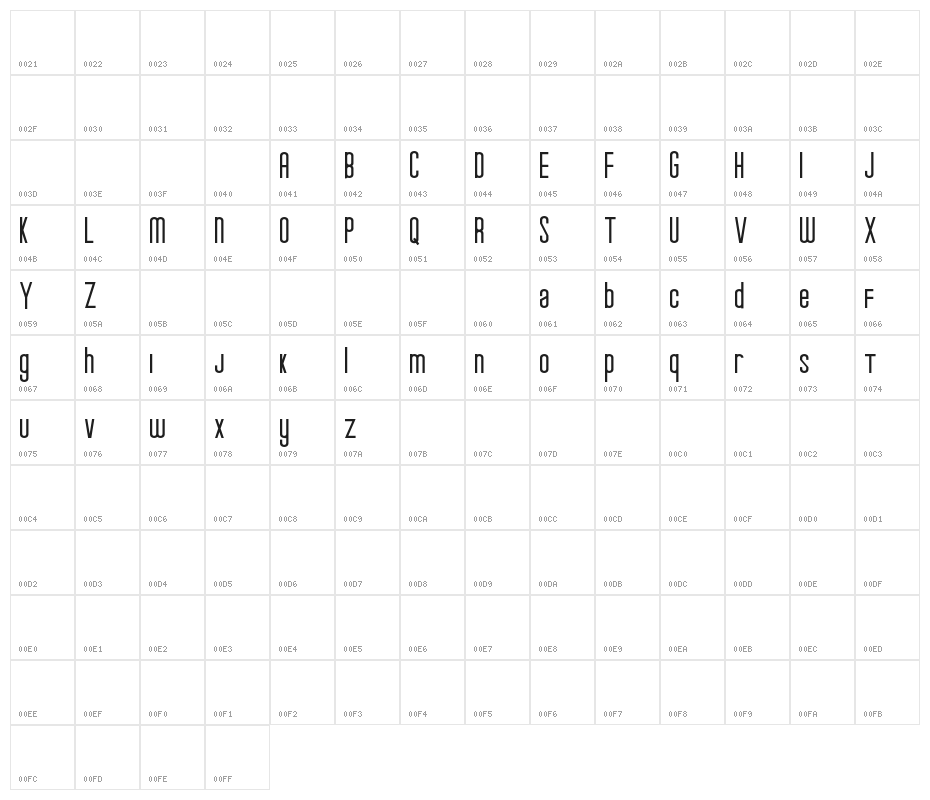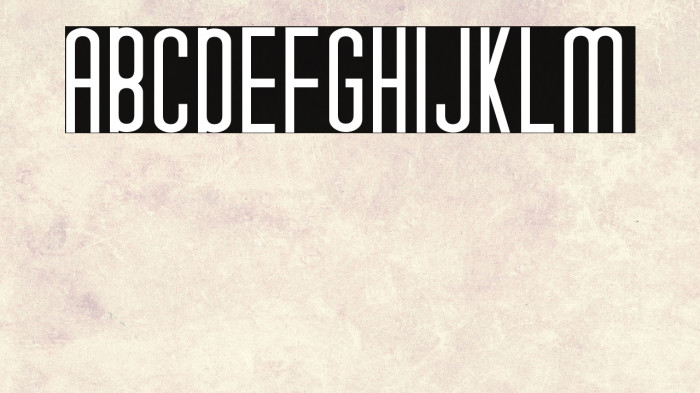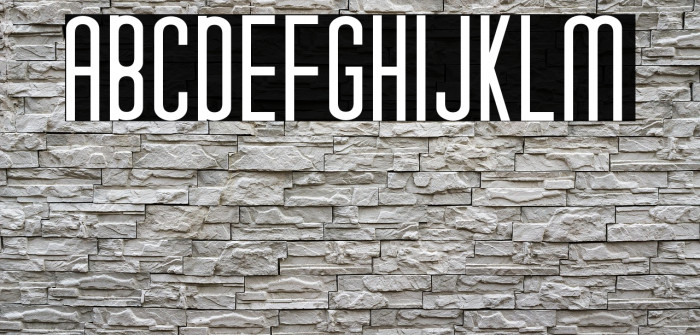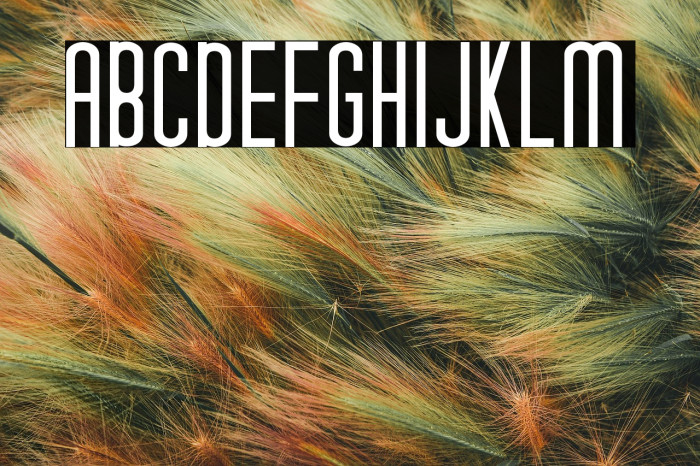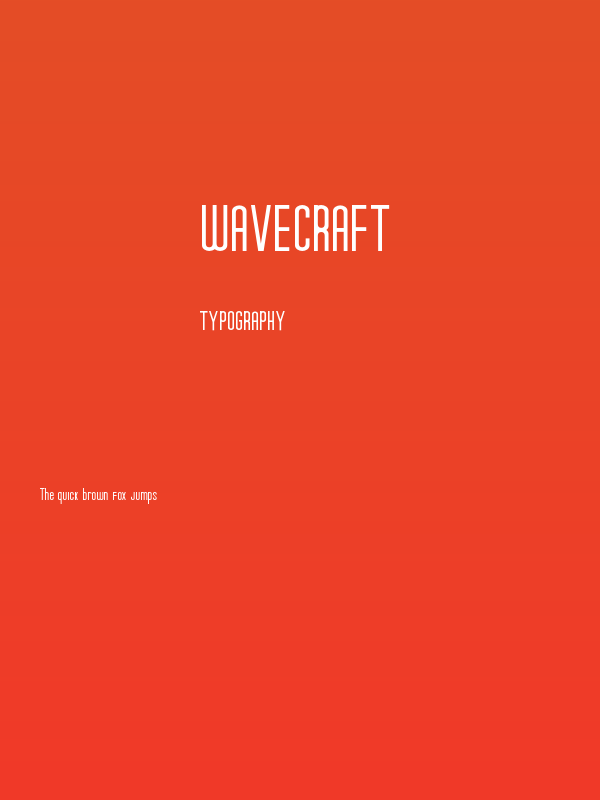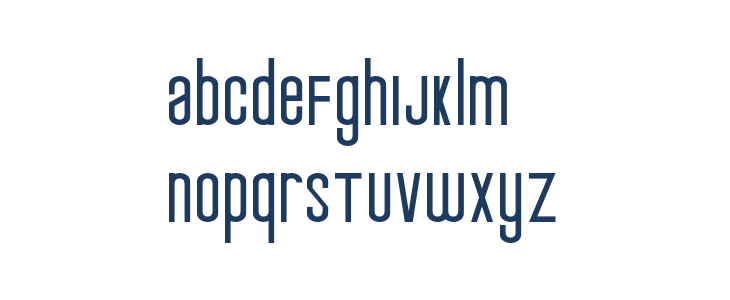
wavecraft Font
wavecraft Description
This font features a modern and sleek design with a geometric structure. The uppercase letters are tall and narrow, giving a condensed appearance, while the lowercase letters maintain a consistent height with rounded edges. The font exhibits a uniform stroke width, contributing to its clean and minimalistic look. The characters are well-spaced, ensuring readability and a balanced aesthetic. The numerals are consistent with the overall style, maintaining the same geometric and condensed form. Special characters are designed to blend seamlessly with the alphabet, providing a cohesive appearance across all glyphs.
Use CaseHeadlines, Logos, Branding
Proposed ProjectsIdeal for branding, advertising, and editorial design projects that require a contemporary and stylish look.